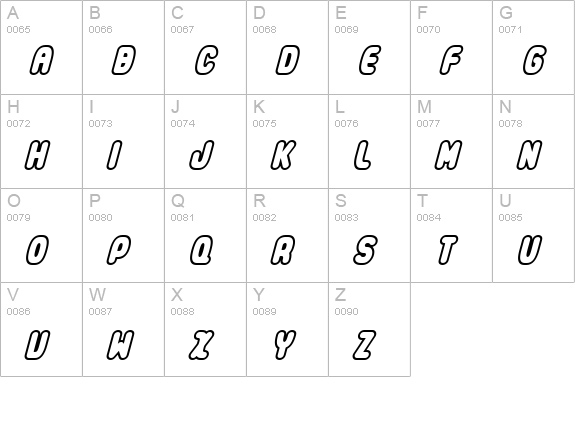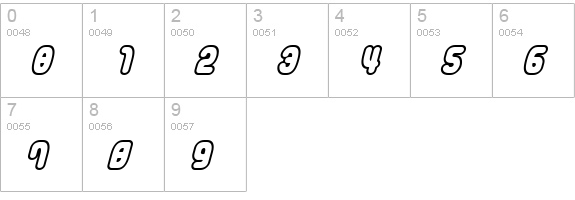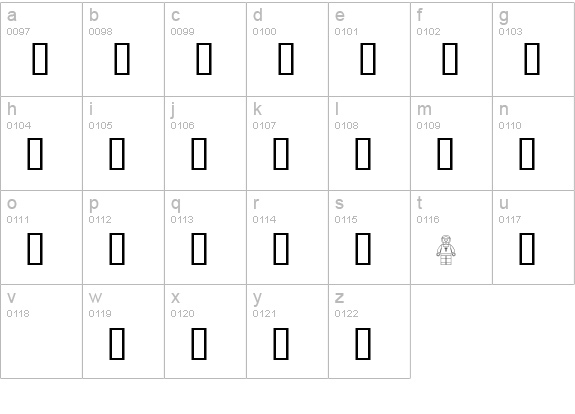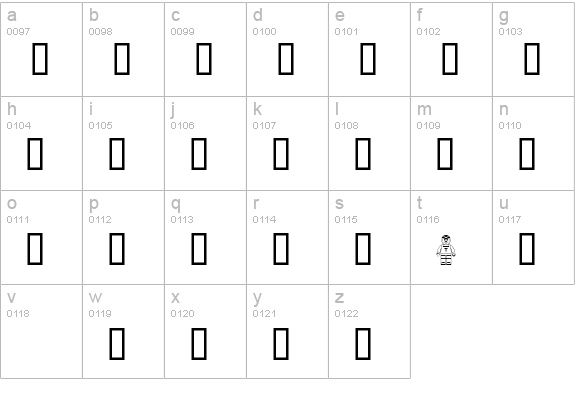
Lego thick font is a bold and eye-catching typeface that exudes strength and confidence. With its solid, blocky letterforms and sturdy construction, Legothick font commands attention and makes a powerful statement. Perfect for headlines, logos, and branding projects, this font is sure to leave a lasting impression. And the best part? Legothick font is completely free to download at FontsMarket.com. Don't miss out on this versatile and impactful typeface for your next design project!